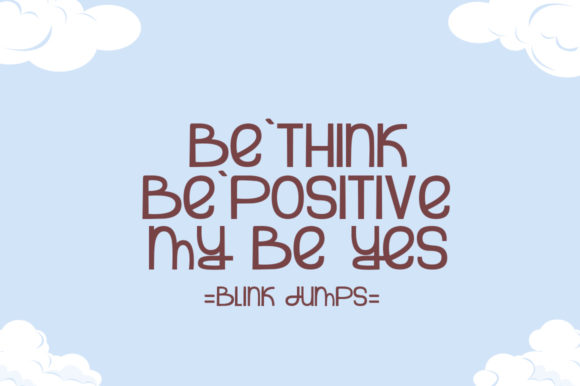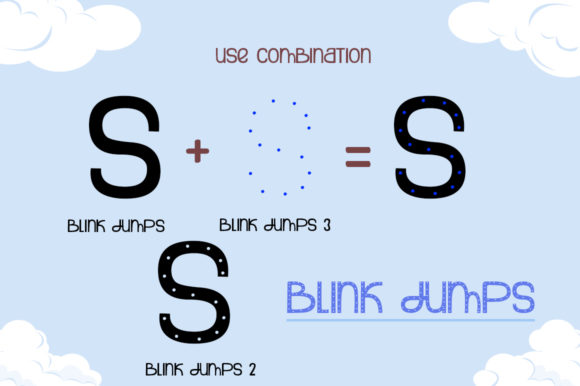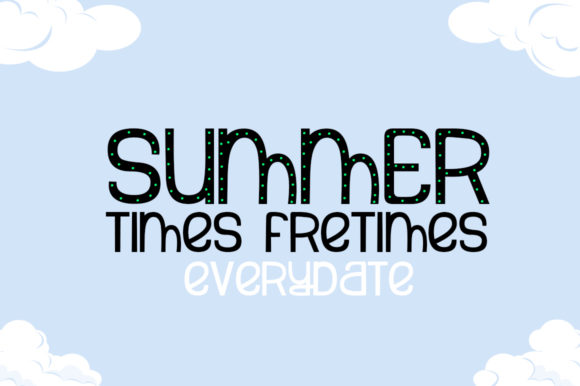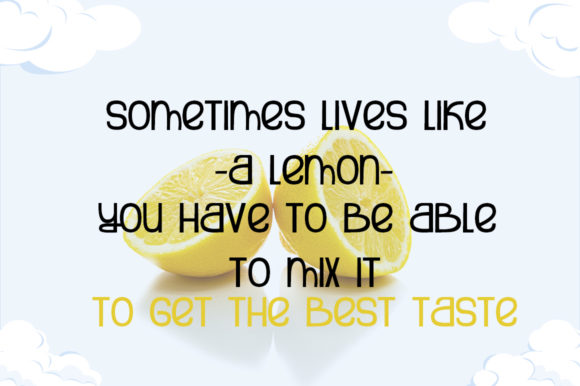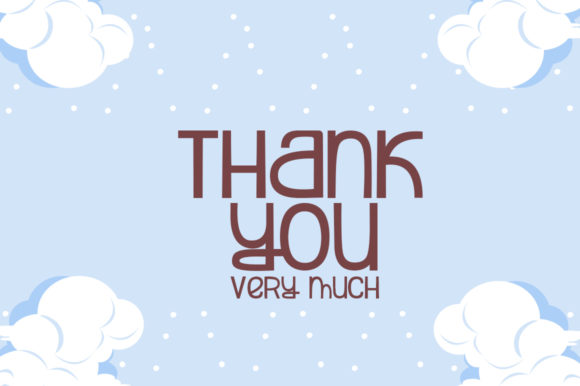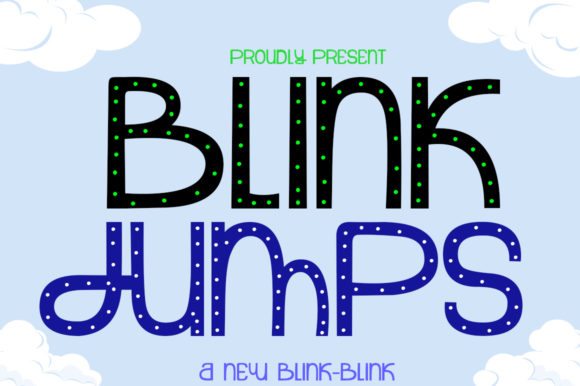
Introducing Blink Jumps Font: The Bold Display Font with a Positive Vibe
Are you tired of using the same old fonts for your designs? Look no further! Blink Jumps Font is here to take your creative projects to the next level. This bold display font features an incredibly positive vibe style that’s sure to make your designs stand out from the crowd.
What is Blink Jumps Font?
Blink Jumps Font is a carefully crafted display font that’s perfect for designers, crafters, and anyone looking to add a touch of excitement to their work. Its bold and eye-catching style makes it ideal for creating outstanding designs that grab attention. Whether you’re working on a logo, poster, or social media graphic, Blink Jumps Font is the perfect choice.
Key Features of Blink Jumps Font
- Bold and Eye-Catching: Blink Jumps Font is designed to make a statement. Its bold style ensures that your text stands out, making it perfect for headlines, titles, and emphasis.
- Positive Vibe: The font’s unique style exudes a positive and energetic vibe, making it perfect for designs that require a friendly and approachable tone.
- Versatile: Blink Jumps Font can be used for a wide range of design projects, from logos and posters to social media graphics and more.
- Easy to Read: Despite its bold style, Blink Jumps Font is easy to read, making it perfect for designs that require a clear and concise message.
- Create a Bold Logo: Use Blink Jumps Font to create a bold and eye-catching logo for your business or brand.
- Design a Poster: Create a stunning poster using Blink Jumps Font to promote an event, product, or service.
- Make a Social Media Graphic: Use Blink Jumps Font to create a social media graphic that grabs attention and encourages engagement.
Benefits of Using Blink Jumps Font
So, why choose Blink Jumps Font for your design projects? Here are just a few benefits:
- Stand Out from the Crowd: Blink Jumps Font is designed to make your designs stand out from the crowd. Its bold and eye-catching style ensures that your text doesn’t get lost in the noise.
- Save Time: With Blink Jumps Font, you can create stunning designs in no time. Its easy-to-read style and versatile design make it perfect for a wide range of projects.
- Professional Look: Blink Jumps Font gives your designs a professional look that’s sure to impress. Its high-quality design ensures that your work looks polished and refined.